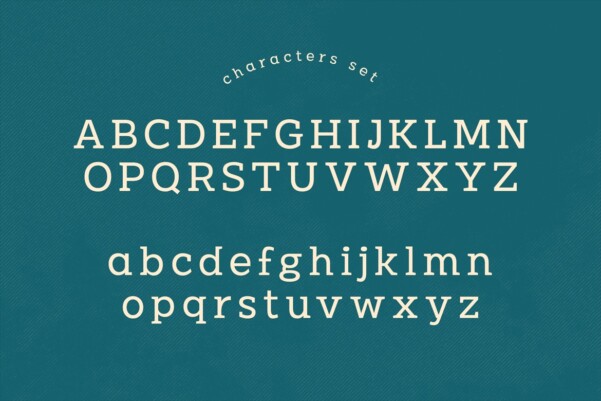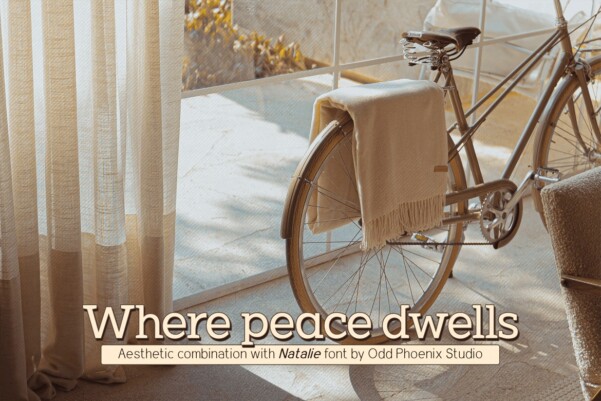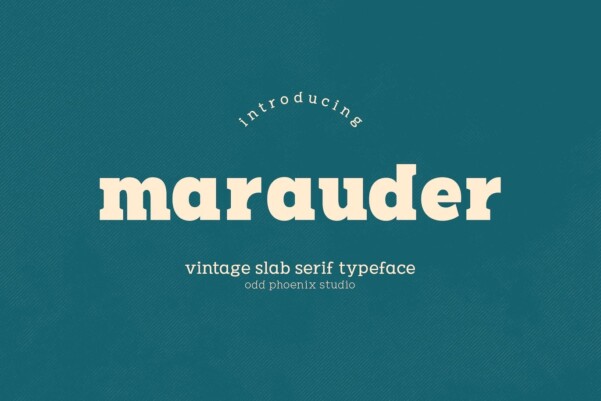
Marauder Font
Marauder Font is a Slab font with strong square serifs. It is suitable for vintage brands, headlines and masculine-themed designs. Available in slim, regular, bold and black styles